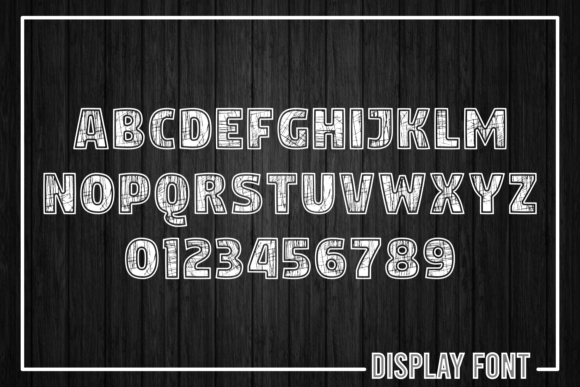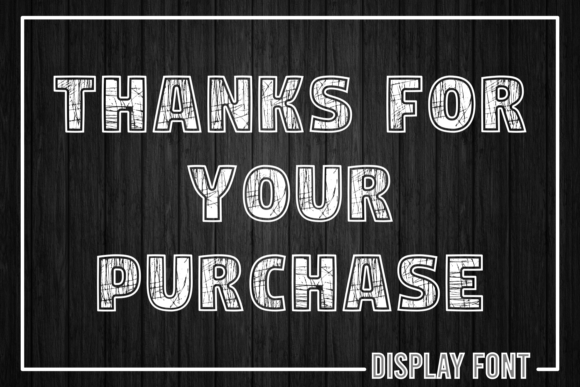
Unleash the Power of Rugged Creativity with Grungy I I Font
In the world of typography, fonts play a crucial role in conveying the tone and aesthetic of a design project. For designers and crafters looking to add a touch of ruggedness and character to their work, the Grungy I I Font is an excellent choice. This bold and distressed font is uniquely crafted to combine strength with an authentic, worn texture, making it perfect for projects that require a vintage look or a contemporary edge.
The Characteristics of Grungy I I Font
The Grungy I I Font stands out with its bold and distressed texture, which gives it a unique character that is hard to find in standard typefaces. Its rugged appearance is not just for show; it adds depth and an element of storytelling to any design project. Whether you’re working on a logo, a poster, a website, or any other visual material, this font ensures that your text does not just blend in but stands out with a statement.
Key Features of Grungy I I Font
- Bold and Distressed Texture: The font’s boldness ensures it’s visible and impactful, while the distressed texture adds a layer of authenticity and ruggedness.
- Versatility: Suitable for a wide range of projects, from vintage-themed designs to modern, edgy creations.
- Easy to Read: Despite its distressed look, the Grungy I I Font remains clear and readable, making it functional as well as stylish.
- Unique Character: The font’s unique texture and style ensure that your project will have a distinct look that sets it apart from others.
Applications of Grungy I I Font
The versatility of the Grungy I I Font makes it suitable for various applications. Here are some of the ways designers and crafters can use this font:
- Branding and Logos: Create a memorable brand identity with a logo that stands out. The rugged yet bold appearance of the font can help a brand appear strong and resilient.
- Posters and Flyers: Add an eye-catching title to your posters and flyers. The distressed texture gives them a unique, attention-grabbing quality.
- Web Design: Use the Grungy I I Font for headings and titles on your website to give it a distinctive look. It’s a great way to add personality to your web design.
- Packaging: Stand out on the shelves with product packaging that features bold, eye-catching typography.
- Social Media Graphics: Make your social media posts stand out with bold, impactful text that captures attention.
Tips for Using Grungy I I Font
To get the most out of the Grungy I I Font, consider the following tips:
- Mix with Other Fonts: Pair the Grungy I I Font with a clean, sans-serif font for contrast and visual interest.
- Play with Colors: Experiment with different colors to find the perfect match for your design. The font works well with both bright colors and muted tones.
- Adjust Size and Weight: Don’t be afraid to experiment with different sizes and weights of the font to achieve the desired impact.
The Grungy I I Font is a powerful tool for designers and crafters looking to add a touch of rugged creativity to their projects. Its unique blend of boldness and distressed texture makes it versatile and impactful. Whether you’re aiming for a vintage vibe or a modern aesthetic, this font can help you achieve your design goals with style and character.
With its wide range of applications and ease of use, the Grungy I I Font is set to become a go-to choice for creatives looking to make a statement with their typography. So, unleash the power of rugged creativity and take your designs to the next level with the Grungy I I Font.